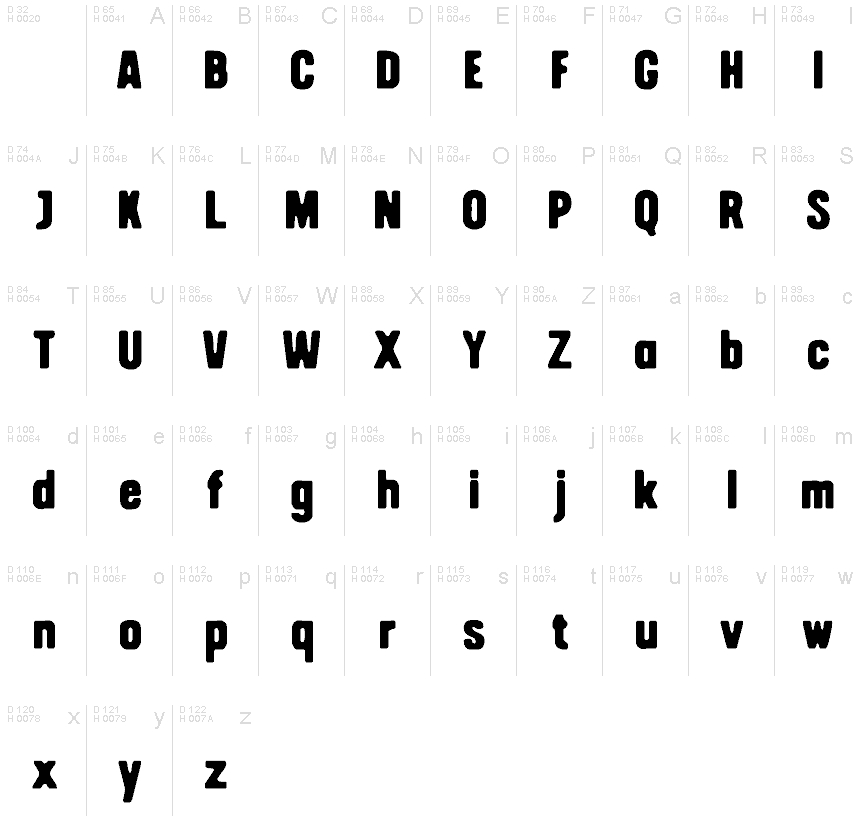
ArnelBlur-Regular
Arnel Blur font by Craft Supply Co. is a modern sans serif created with the best in not only quality but also simplicity and elegance on equal measures. A subtle blend of rounded, geometric, and clean letters make this bold and condensed font appropriate for both professional and casual projects the likes of which embrace beauty.